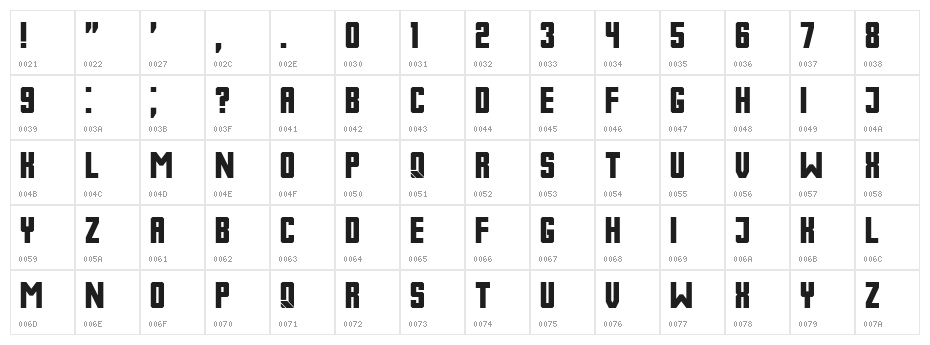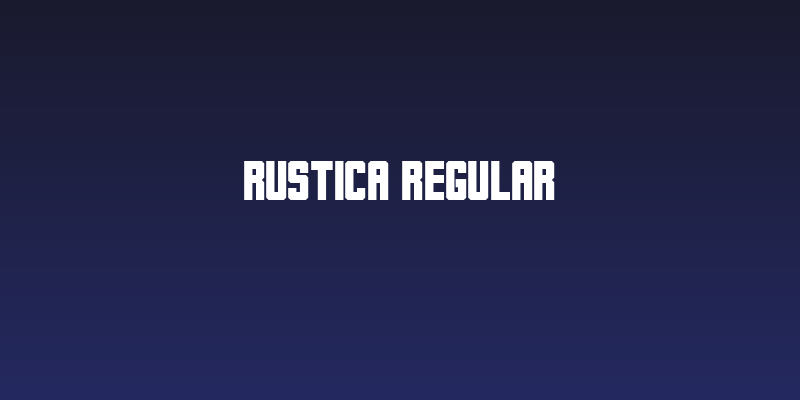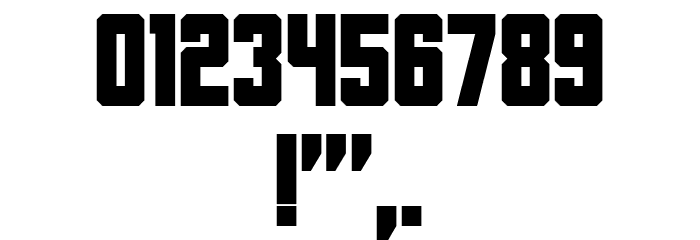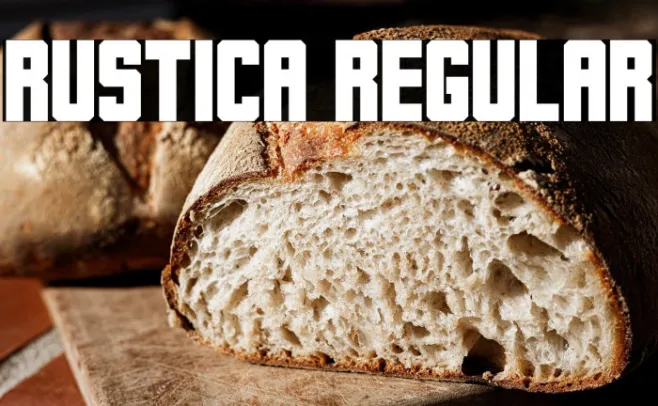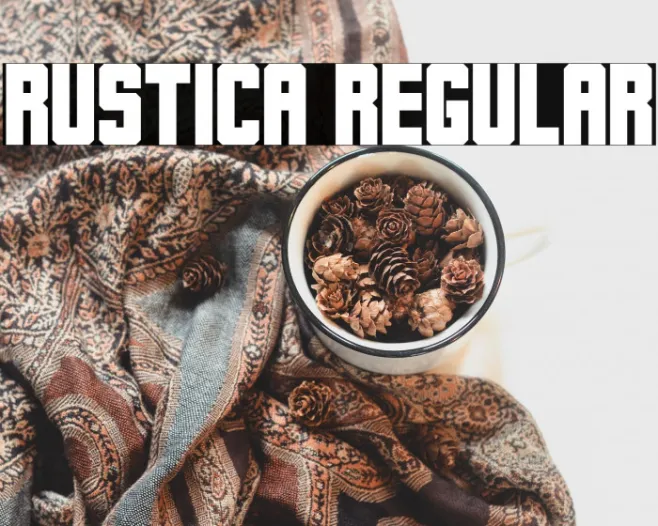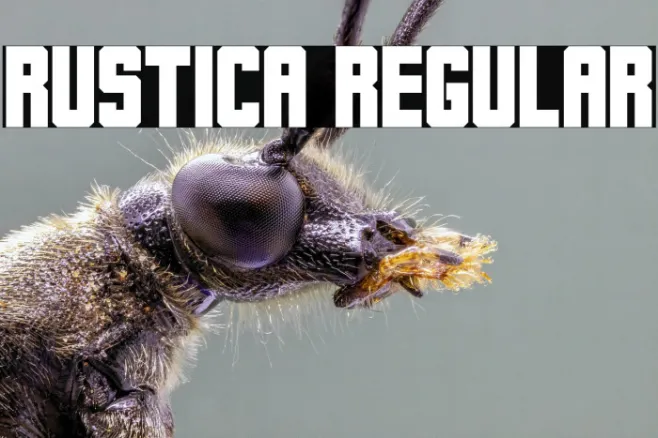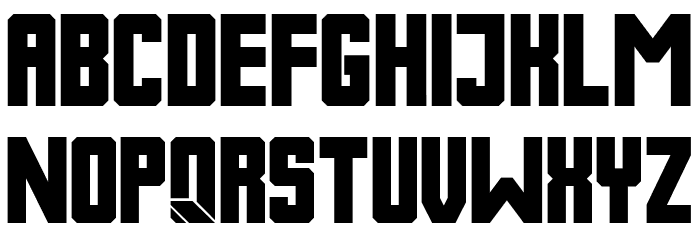
Rustica Regular Font
Rustica Regular Description
This font features a bold, geometric design with a strong presence. The characters are constructed with thick, uniform strokes that give it a robust and modern appearance. The angular and blocky shapes create a sense of stability and strength, making it ideal for impactful headlines and logos. The uppercase letters are particularly striking, with a consistent height and width that enhances readability. The numerals and special characters maintain the same bold style, ensuring a cohesive look across all text elements.
| Proposed Projects | Ideal for branding, posters, and headlines where a strong visual impact is needed. |